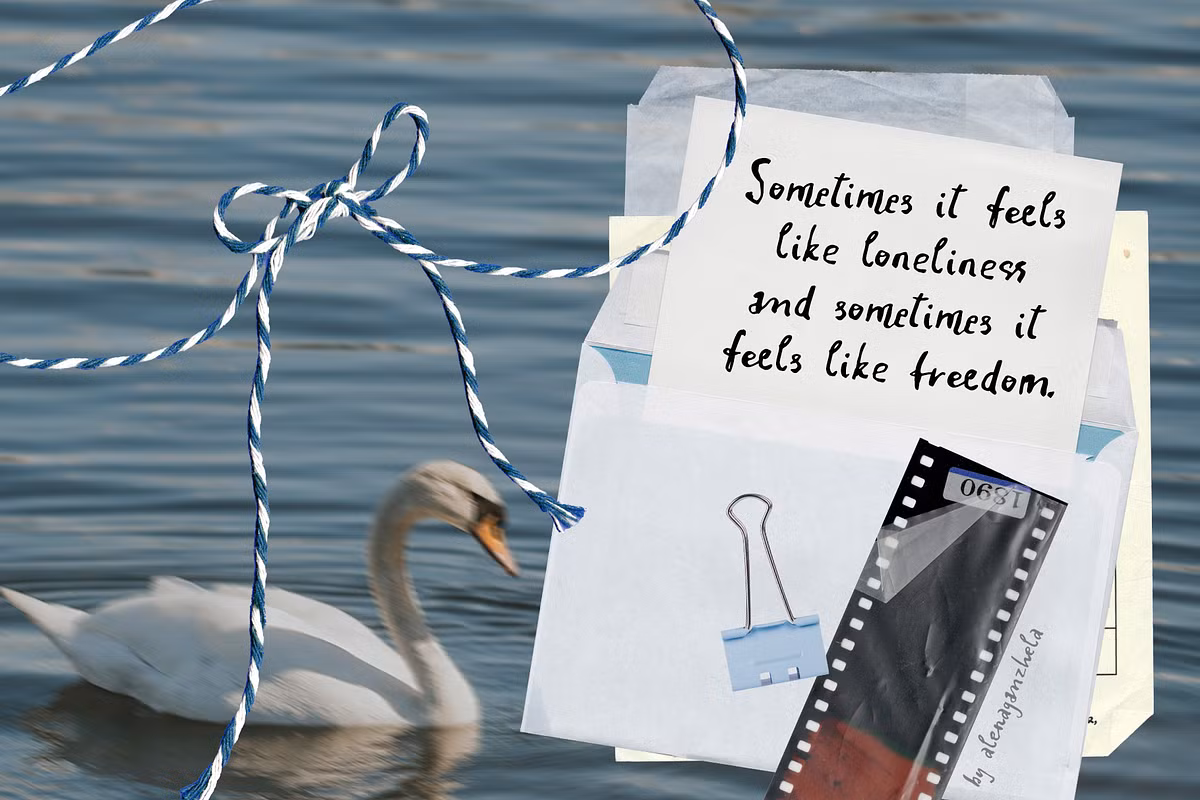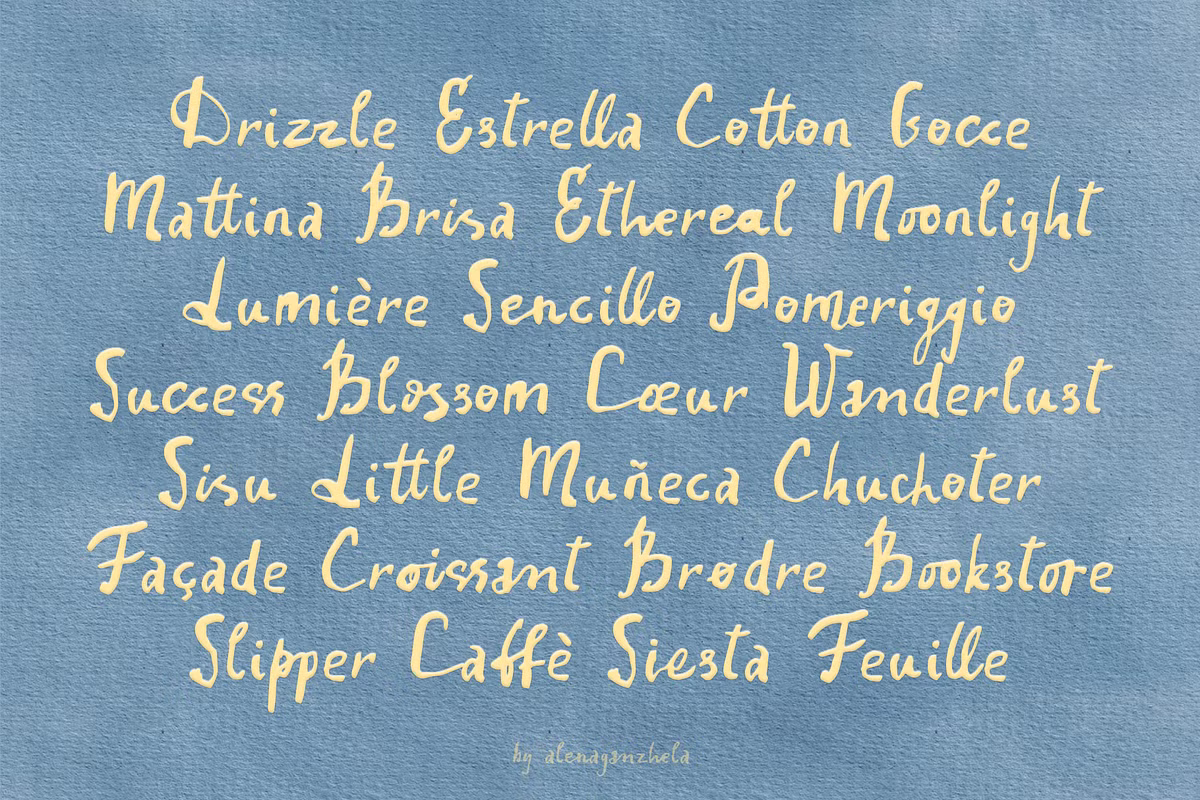
Marin Solis Coastal Handwritten Font: Artistic Script for Personal Projects
Meet Marin Solis, a stunning handwritten script font that captures the carefree spirit of the coast. Its effortless flow and natural rhythm make it feel like you’re reading a letter from a friend or browsing through a treasured journal. Whether you’re working on a personal project or just want to add a touch of warmth to your designs, Marin Solis is the perfect choice. With its beautiful, handwritten style, it’s great for adding an artistic touch to all sorts of things. You can use it to make your designs feel more personal and special, like a cherished memory from a day spent by the ocean.
Design Style of Marin Solis
The Marin Solis design has a smooth, flowing look that’s like the ocean’s waves. Its curly letters give it a classy feel that can make any project look great. The special way the letters are shaped is not only nice to look at, but also feels warm and personal, which makes it perfect for creative work.
- Handwritten Aesthetic: Marin Solis offers the charm of a handwritten note, adding a personal touch that digital fonts often lack.
- Flowing Rhythm: The font’s rhythm mimics the natural flow of writing, making it easy to read while maintaining an artistic flair.
The letters in this font are made to be really useful and look good in lots of different situations, like when they’re used in big headings or in the main text of something. They’re all carefully designed to make sure the font looks great no matter where it’s used.
Character Sets and Multilingual Support
Marin Solis has a lot to offer, especially when it comes to its characters. It’s got a huge range of characters that can be used in many different languages, which is really useful for designers who want to connect with people all around the world. This means that whether you’re creating something for a local audience or a global one, Marin Solis has got you covered. Its multilingual support is a major plus, making it a great choice for anyone who wants to communicate with people in different parts of the world.
When you’re making a wedding invitation or a greeting card, you want it to look perfect. Marin Solis can help you with that, no matter what language you’re using. They have all the special characters and diacritics you need, so your text looks beautiful and stays true to its original style. This way, you can create something really special, no matter what language you’re speaking.
Use Cases for Marin Solis
Marin Solis is a really versatile font, which makes it great for lots of different uses. Let’s take a look at some specific examples of where it works really well.
- Wedding Invitations: The elegant and personal touch of Marin Solis makes it an ideal choice for wedding stationery, including invitations, RSVP cards, and thank you notes.
- Stationery Design: Use this font in your personal stationery to create a cohesive and stylish look that reflects your personality.
- Journaling and Scrapbooking: Capture your memories and thoughts in style by incorporating Marin Solis into your journaling and scrapbooking projects.
- Branding and Packaging: Brands that want to convey a sense of warmth and approachability can benefit from this font in their logos and packaging designs.
- Quotes and Social Media Graphics: Use Marin Solis to create eye-catching quotes or graphics for your social media platforms, enhancing engagement with visually appealing text.
Pairing Suggestions for Marin Solis
To get the most out of Marin Solis in your designs, try combining it with fonts that complement its style. Here are a few suggestions that go well with this handwritten script:
- You can pair Marin Solis with a simple, clean font like Montserrat or Open Sans. This will give you a modern look that’s nice and balanced. The elegance of the script font works well with the plainness of the sans serif font. It’s a good combination that looks fresh and stylish.
- Serif Fonts: Combining Marin Solis with a classic serif font like Playfair Display can create a sophisticated contrast that enhances readability while maintaining style.
- When you want your design to look put together, think about using Marin Solis with another handwritten font, like Pacifico, just for headings or to add some flair. This way, you can keep the rest of your text simple and easy to read.
Marin Solis is a really special font that can make your work look more personal and creative. It’s got a unique style that’s inspired by the coast, and it comes with a lot of different characters that you can use. This makes it perfect for all sorts of projects, like wedding invitations or branding. The way the letters flow together is really nice, and it looks super elegant. So, if you want to add a touch of class to your work, Marin Solis is a great choice. It’s going to help you bring your ideas to life and make them look amazing. Feel free to use it in your projects, and don’t forget to share your work with the person who created the font on social media – they’d love to see what you come up with!